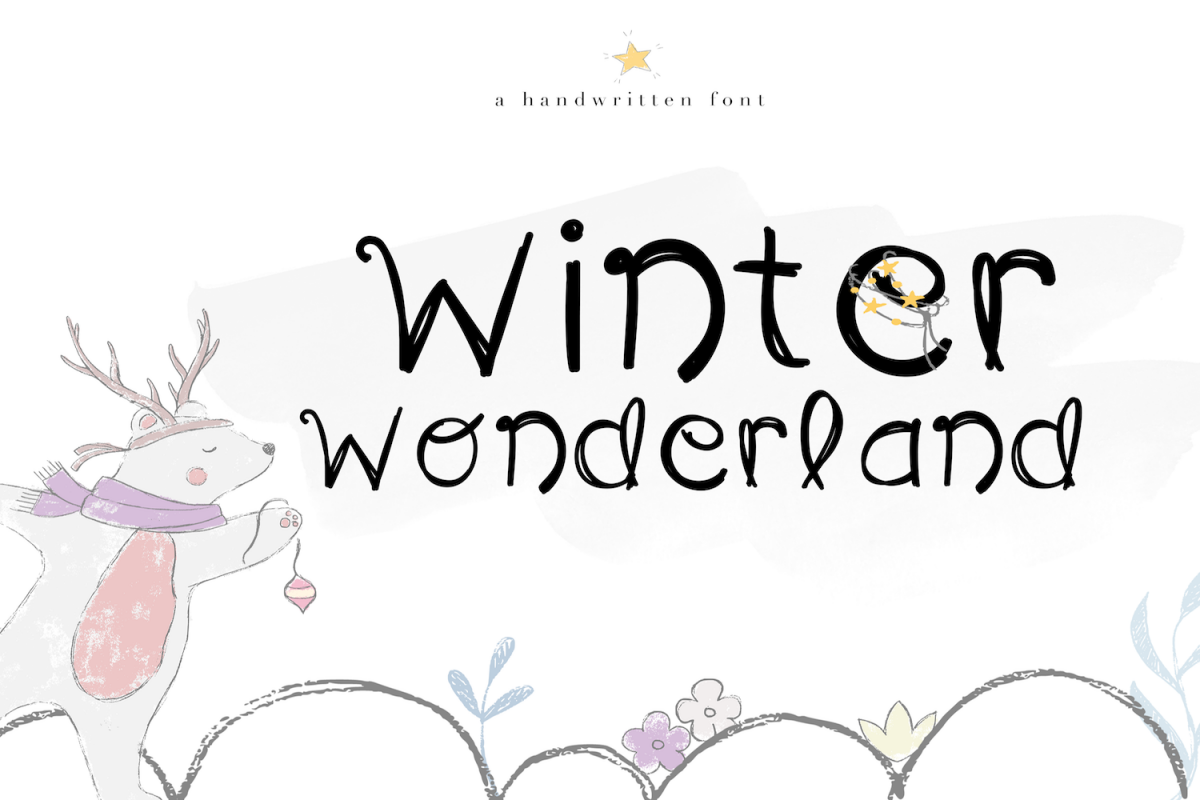
Winter Wonderland - A Fun Handwritten Font
Winter Wonderland is a fun handwritten font.
This font is perfect for quotes, headings, blogs, logos, invitations and more!
*The lowercase and capital letters are the same for this font*
This font does not include accent characters.